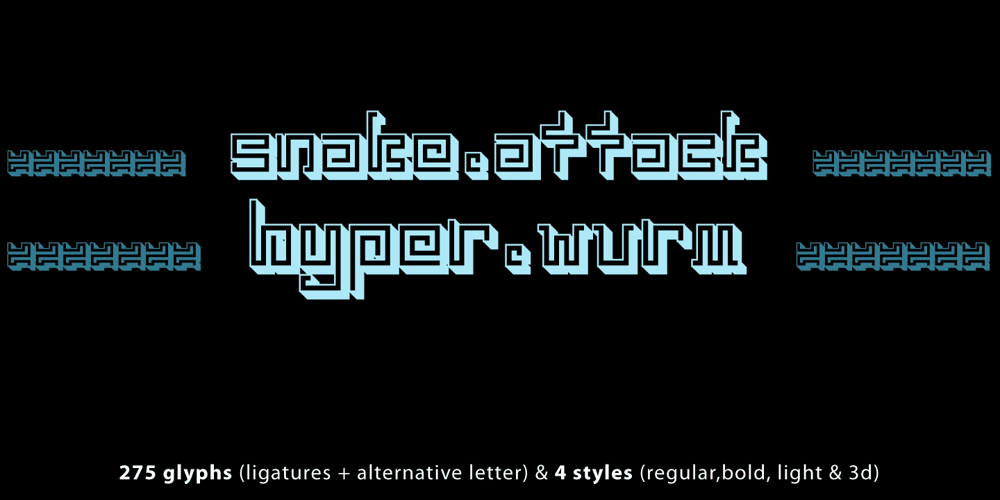
India Snake Pixel Labyrinth Game
India Snake Pixel Labyrinth Game font
India Snake Pixel Labyrinth Game Font Family was designed by Manuel Viergutz and published by TypoGraphicDesign. India Snake Pixel Labyrinth Game contains 4 styles and family package options. CONCEPT/CHARACTERISTICS The curly, pixelated, edgy and futuristic cha­rac­ter, gives the type­face a high reco­gni­tion value and uniqueness. APPLICATION AREA The fancy, videogame like, vintage and sci-fi font „india snake pixel labyrinth game“ would look good at logos, dis­play size for poster, flyer, comics and gra­phic novel let­te­ring, head­lines in maga­zi­nes or web­sites, packa­ging, music covers or webbanner etc. TECHNICAL SPECIFICATIONS Head­line Font | Dis­play Font | Sci-Fi Font „india snake pixel labyrinth game“ OpenType Font with & 275 gly­phs & 4 styles (regu­lar, bold, light & 3d). Alter­na­tive let­ters, symbols and liga­tures (with accents & €) KONZEPT/BESONDERHEITEN Der ausgefallene, videospielartige, retro und futuristische Cha­rak­ter, geben der Schrift eine hohe Wiedererkennung und eine gewisse Einzigartigkeit.